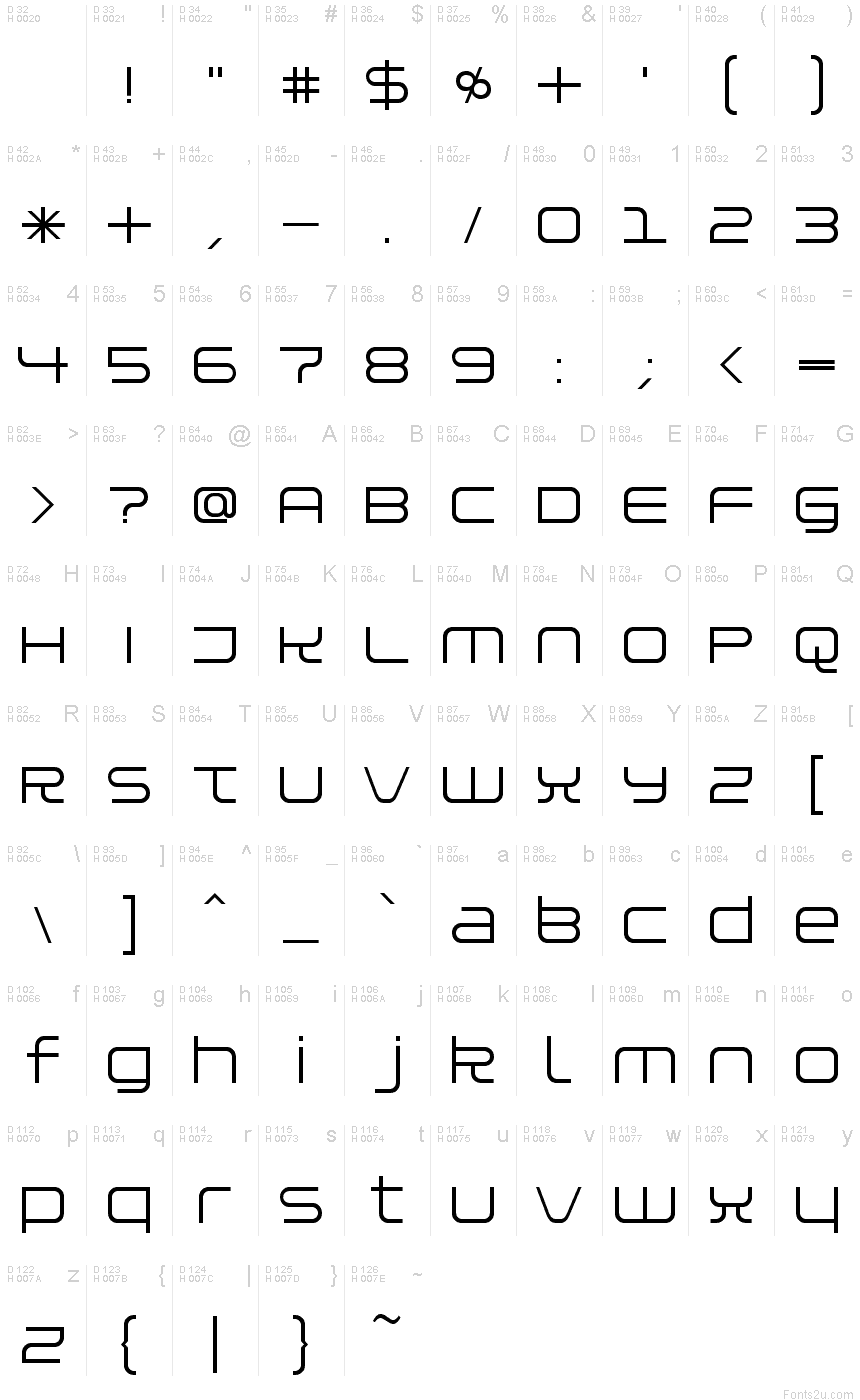
Installer
Installer font by Milan Zrnic is a free sans serif typeface that turns thin lines into a bold statement. Its ultra-light, monoline strokes and wide, squared curves give every word a clean, wired-in feel-like a circuit diagram drawn with a single precise pen. Letters stand tall and airy, with generous spacing that keeps even long words readable while still feeling sleek and futuristic.
Using Installer, you get a crisp, tech-forward voice that shines on app interfaces, UI mockups, sci‑fi posters, album covers, fashion branding, and minimalist packaging. This free font works beautifully in large headline sizes where its hairline forms can really breathe; pair it with a simple, sturdy grotesk for body text to keep layouts balanced and grounded.